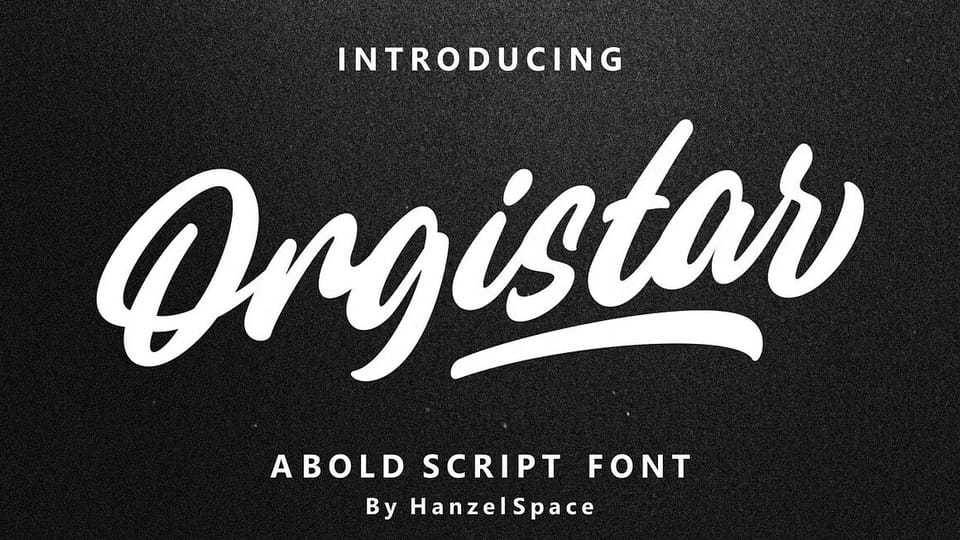
Download Orgistar font, a standout bold script with a touch of natural looks. This type of font perfectly made to be applied especially in logo, headline, signage.